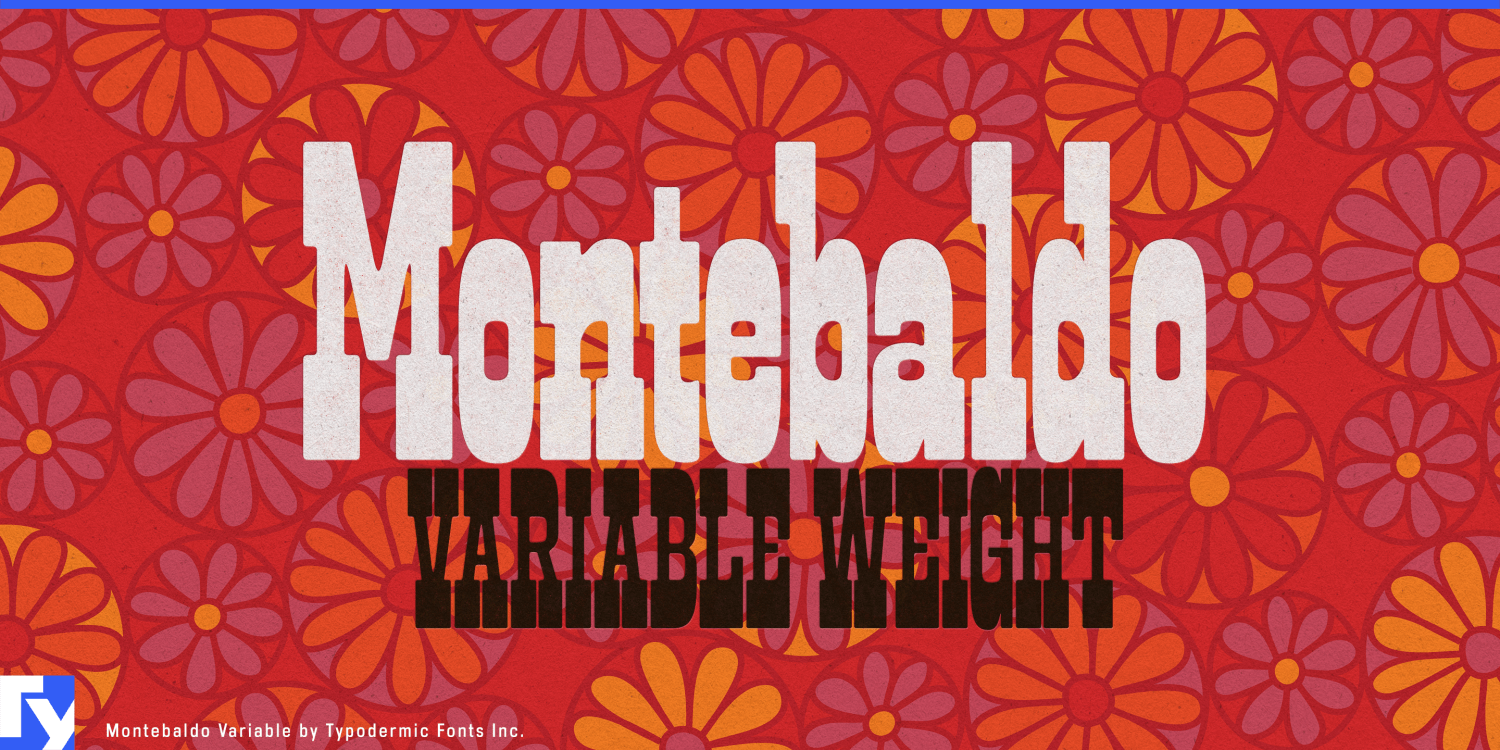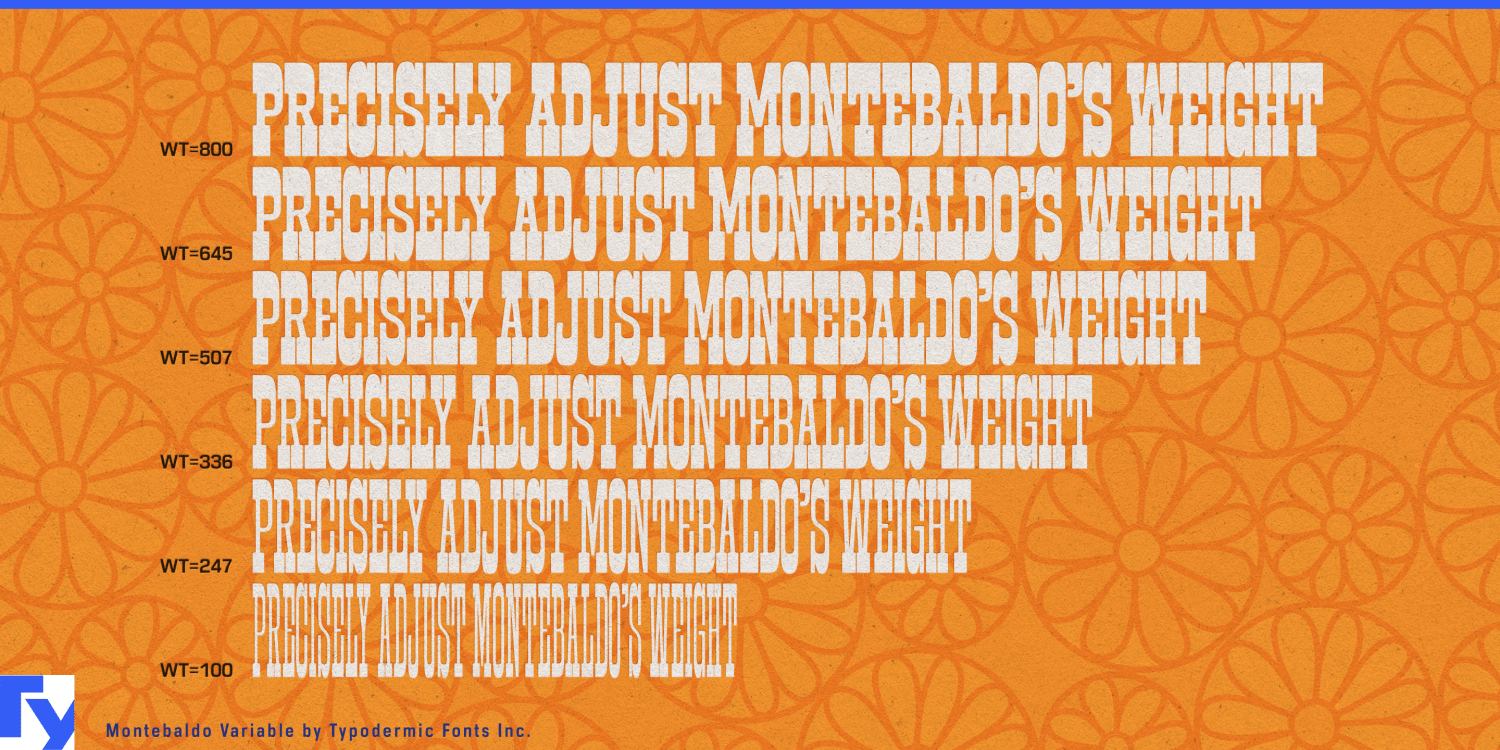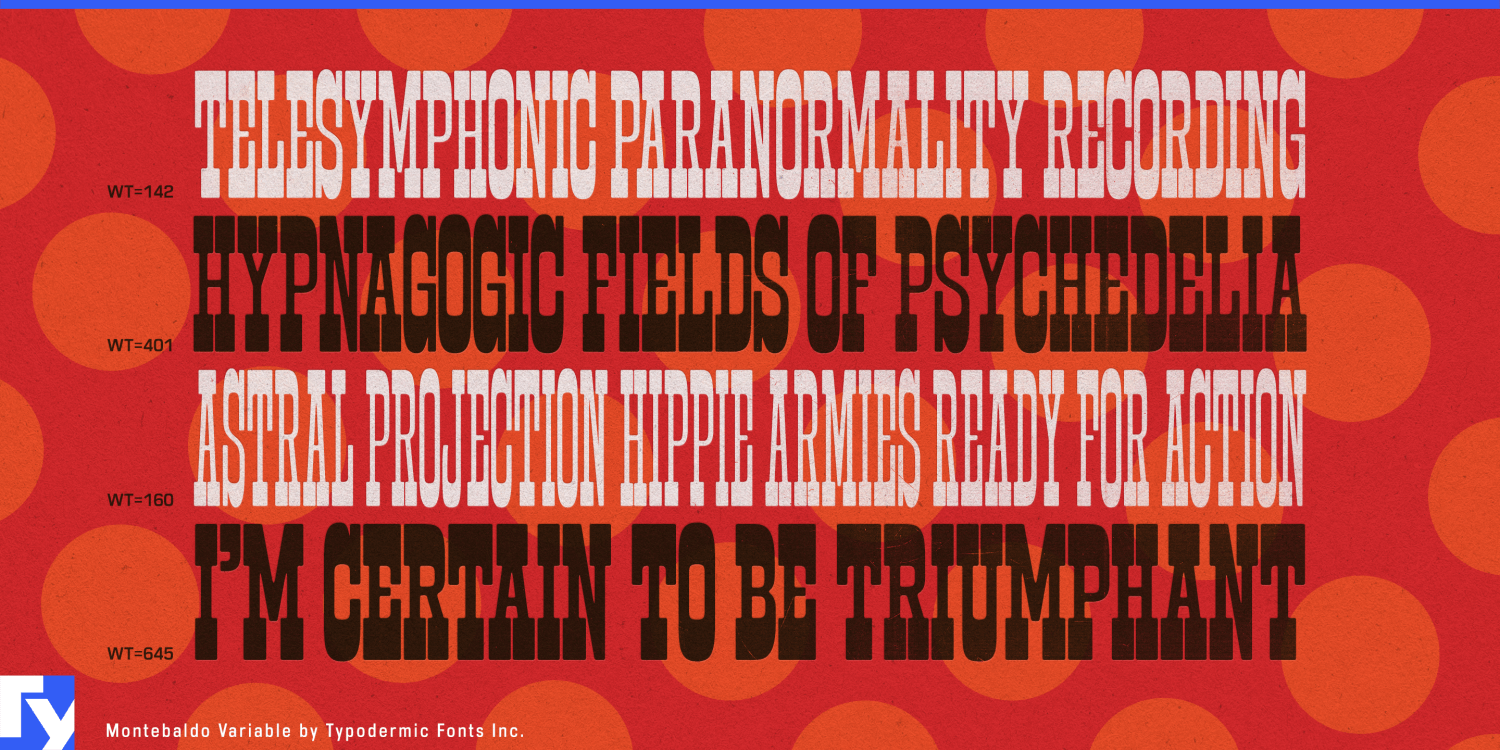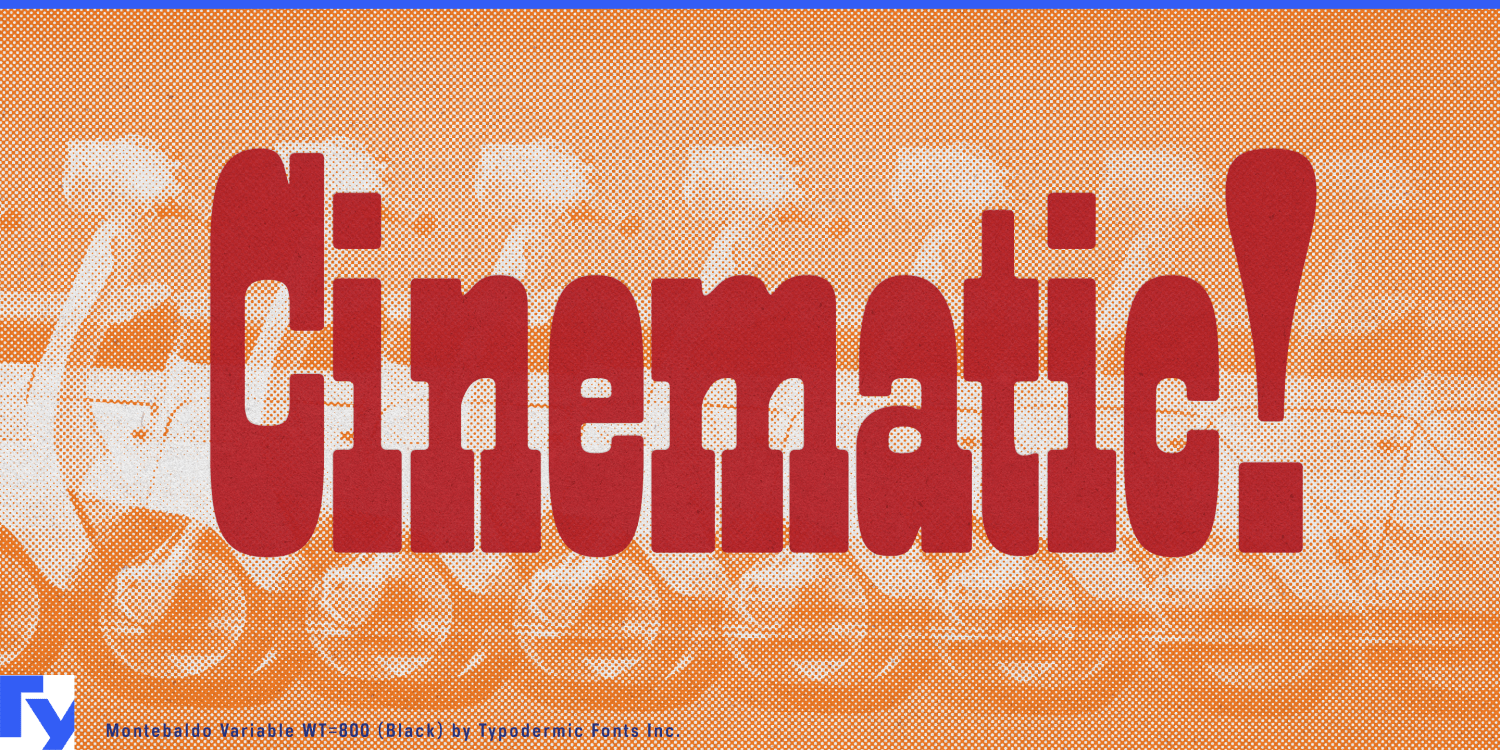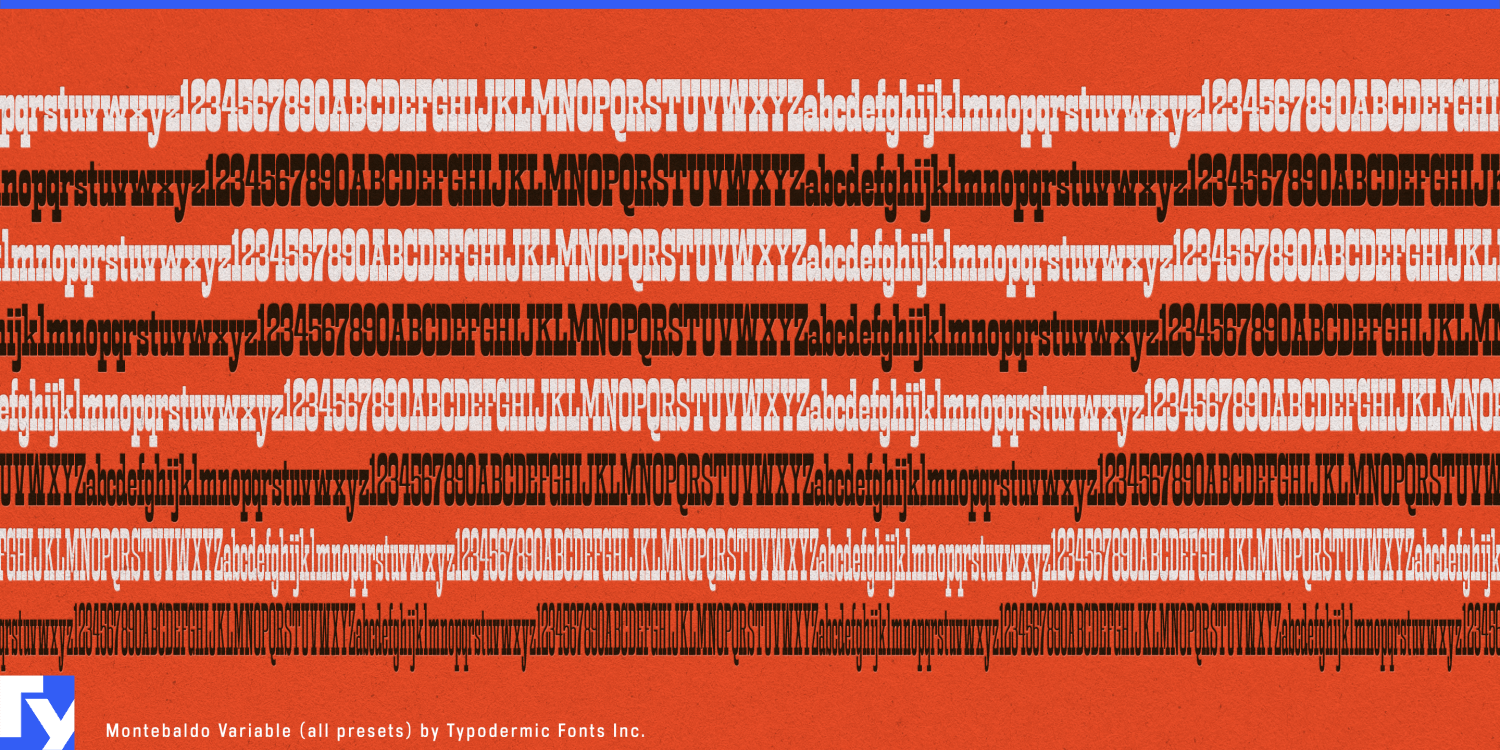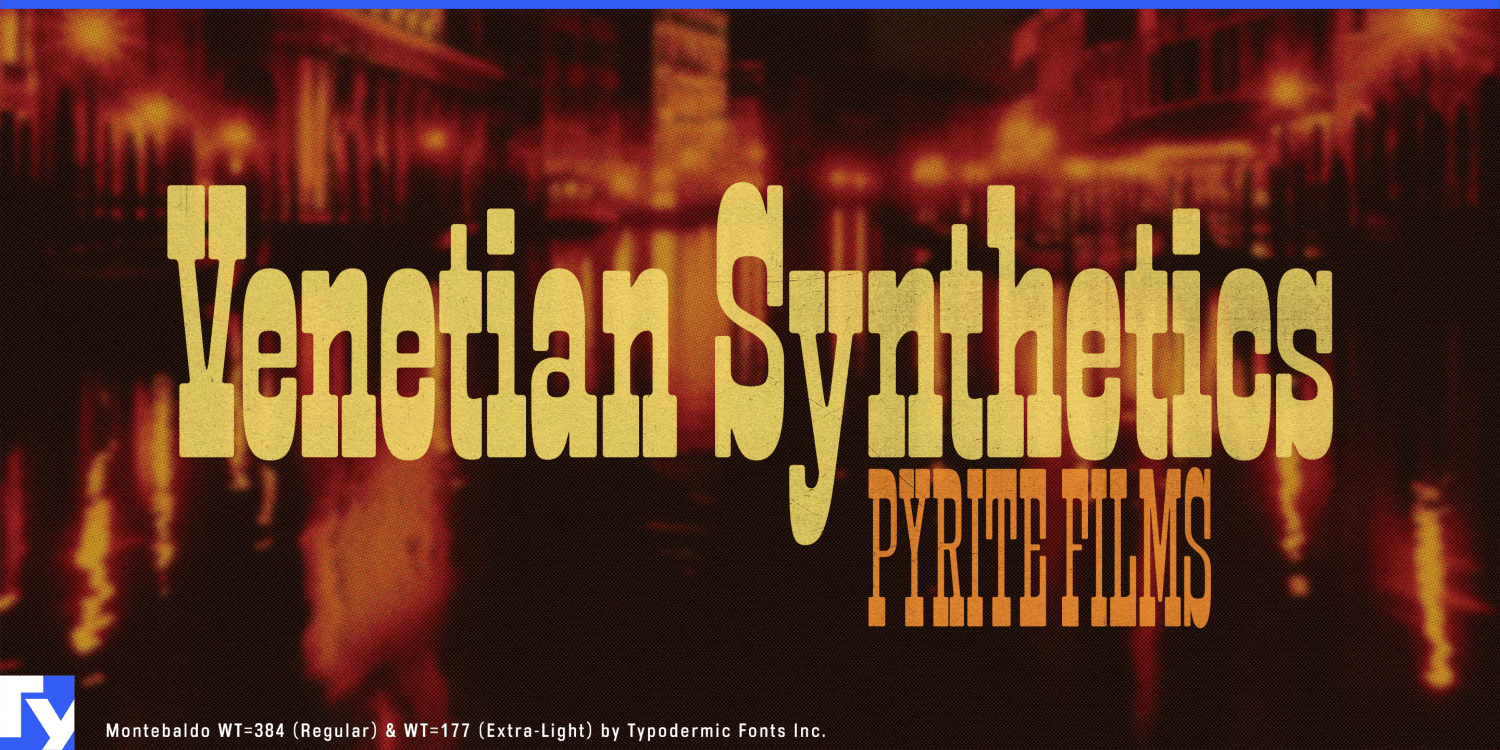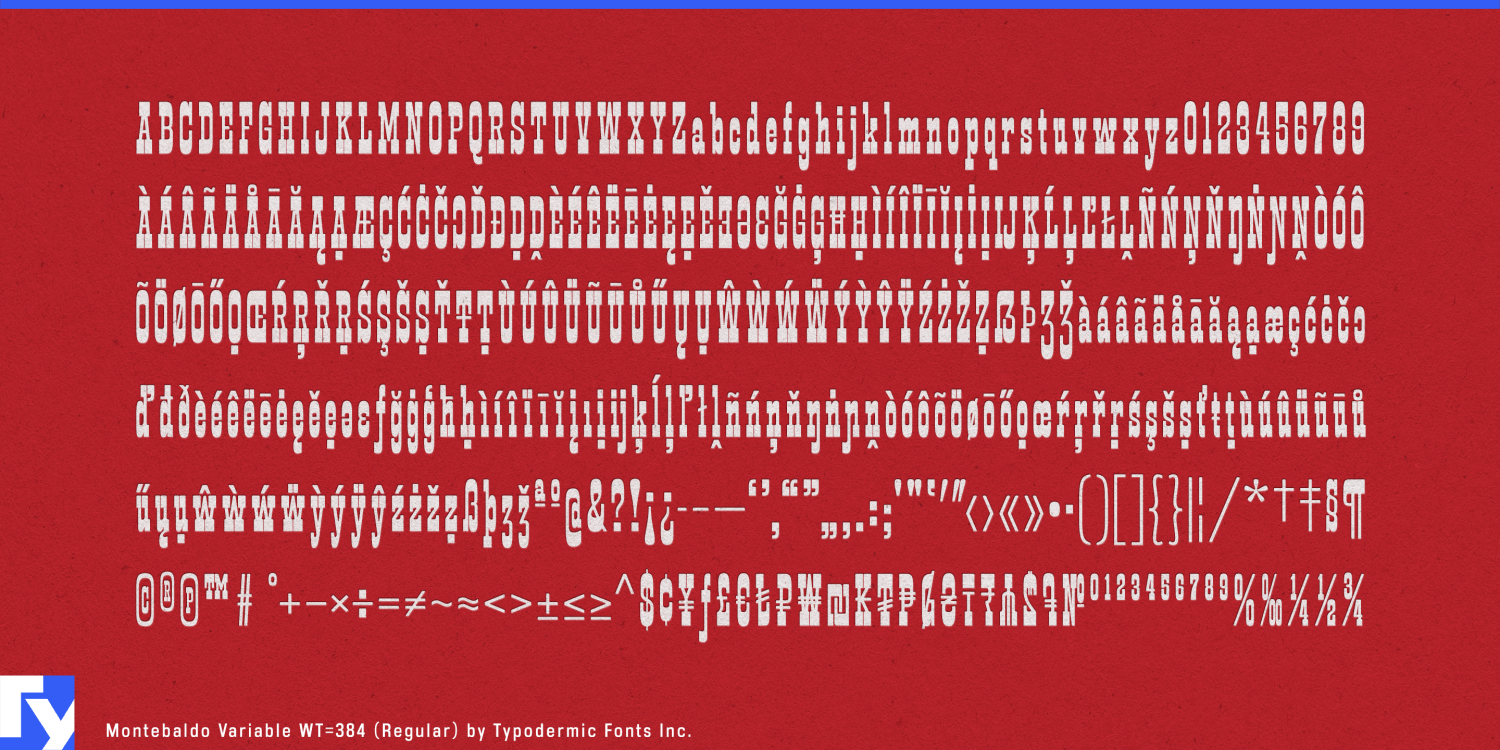
Montebaldo Variable
Font Family by Typodermic
Montebaldo Variable invites you to direct your own typographic blockbuster, seamlessly blending 1960s cinematic charm with cutting-edge font technology. This inverse slab serif from Typodermic Fonts doesn’t just pay homage to the golden age of cinema—it revolutionizes it for the digital era.
Imagine a typeface that transforms before your eyes, much like a scene transition in a classic film. Montebaldo Variable’s unique weight axis simultaneously adjusts both weight and width, offering an infinite spectrum of possibilities. From whisper-thin, ultra-compressed styles that speak of intimate close-ups to bold, expansive forms that command attention like a cinematic panorama, you’re in control of every nuance. As you glide along the weight axis, watch Montebaldo Variable evolve from a narrow, delicate form perfect for elegant, space-efficient designs to a robust, attention-grabbing presence that dominates the frame. This seamless transformation allows you to fine-tune your typography with the precision of a master filmmaker, ensuring your message hits its mark every time.
Montebaldo Variable’s beefy serifs and ultra-tight spacing evoke the tactile quality of vintage photo-typositors and dry transfer lettering, infusing your digital designs with an authentic analog feel. Its softened corners ensure that whether you’re crafting headlines or zooming in for typographic close-ups, every character is ready for its spotlight moment. For those who prefer a more traditional approach, a non-variable version is also available, offering the same cinematic flair in a classic format. But for designers ready to embrace the future of typography, Montebaldo Variable opens up a world of creative possibilities. This typeface isn’t just about style—it’s about global communication. With support for an extensive array of Latin-based European writing systems, Montebaldo Variable ensures your message resonates across cultures, from the bustling streets of Paris to the sun-soaked plazas of Lisbon.
Ready to elevate your designs from B-movie to box office hit? Let Montebaldo Variable take the leading role in your next project. Whether you’re designing film titles, crafting responsive websites, or creating brand identities that demand flexibility, Montebaldo Variable delivers a performance that will leave your audience asking for an encore. It’s time to direct your typographic masterpiece!